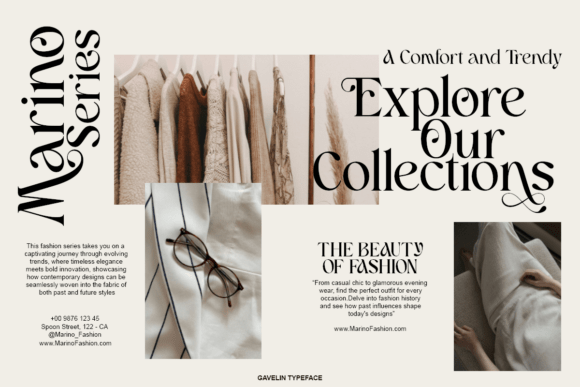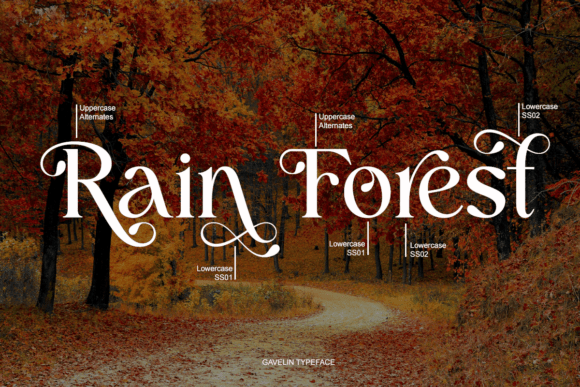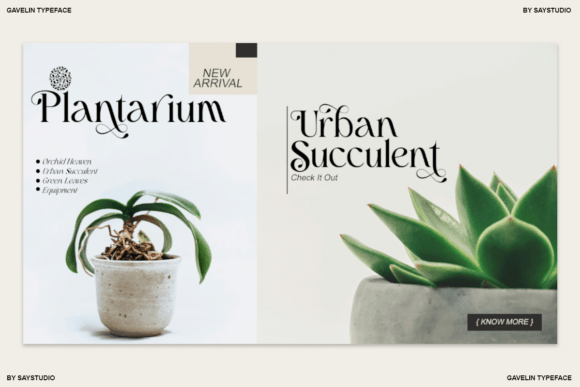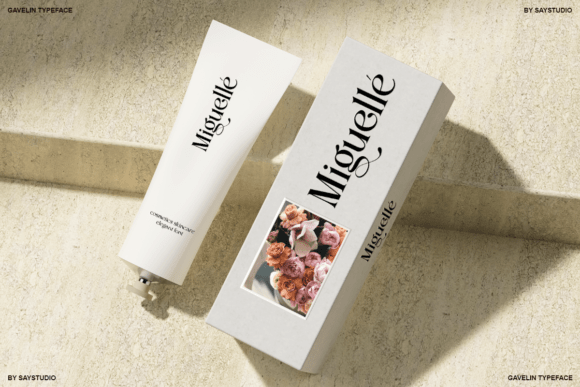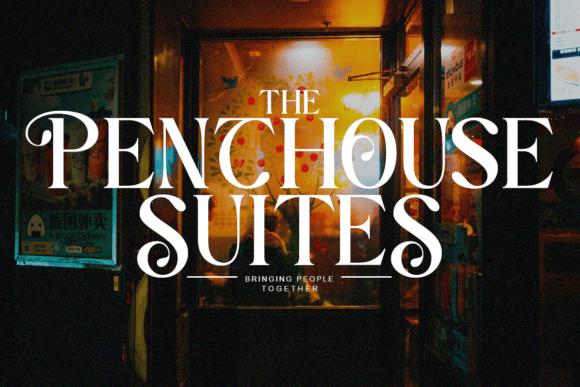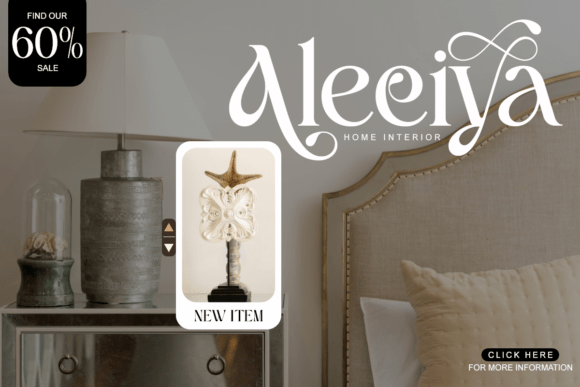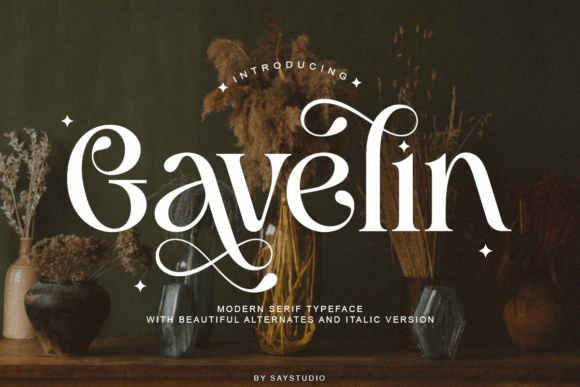
Gavelin Font: Elevate Your Designs with Luxury and Sophistication
In the world of typography, a font can make or break a design. For designers and crafters seeking to add a touch of luxury and sophistication to their projects, Gavelin Font is an excellent choice. This modern serif font boasts a high-end style, making it perfect for a wide range of applications, from branding and advertising to packaging and editorial design.
What is Gavelin Font?
Gavelin Font is a modern serif font designed with a luxury style in mind. Its high-contrast glyphs give it a unique, elegant appearance that exudes both femininity and masculinity. The font features serifs in many special characters and comes with italic versions, making it a versatile tool for designers. Whether you’re working on a corporate brand identity, a fashion magazine, or a product packaging project, Gavelin Font is an excellent choice.
Key Features of Gavelin Font
• Modern Serif Design: Gavelin Font features a modern serif design that sets it apart from traditional serif fonts. Its clean lines and elegant curves make it perfect for designs that require a touch of sophistication.
• High-Contrast Glyphs: The font’s high-contrast glyphs give it a unique appearance that is both feminine and masculine. This makes Gavelin Font an excellent choice for designs that require a balance of elegance and strength.
• Italic Versions: Gavelin Font comes with italic versions, making it easy to add emphasis and style to your designs.
• OpenType Features: The font features OpenType features, making it easy to use and customize.
• Multipurpose: Gavelin Font is a multipurpose font that can be used for a wide range of projects, from branding and advertising to packaging and editorial design.
Use Cases for Gavelin Font
Gavelin Font is a versatile font that can be used for a variety of projects, including:
• Branding and Logo Design: The font’s luxury style and high-contrast glyphs make it perfect for branding and logo design projects that require a touch of sophistication.
• Magazine and Editorial Design: Gavelin Font is well-suited for magazine and editorial design projects, particularly for headings and titles.
• Product Packaging: The font’s elegant appearance makes it an excellent choice for product packaging projects that require a touch of luxury.
• Invitations and Stationery: Gavelin Font is perfect for invitations and stationery projects that require a touch of sophistication and elegance.
Why Choose Gavelin Font?
There are many reasons why designers and crafters should choose Gavelin Font for their projects. Here are a few:
• Elegant Appearance: The font’s elegant appearance makes it perfect for designs that require a touch of sophistication.
• Versatility: Gavelin Font is a multipurpose font that can be used for a wide range of projects.
• Easy to Use: The font is easy to use and features OpenType features, making it easy to customize.
• High-Quality: Gavelin Font is a high-quality font that is designed to deliver exceptional results.
In conclusion, Gavelin Font is an excellent choice for designers and crafters seeking to add a touch of luxury and sophistication to their projects. Its modern serif design, high-contrast glyphs, and OpenType features make it a versatile tool that can be used for a wide range of applications. Whether you’re working on a branding project, a magazine, or a product packaging project, Gavelin Font is sure to deliver exceptional results.